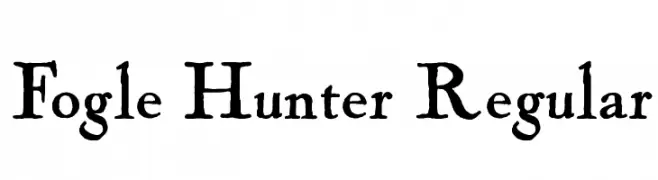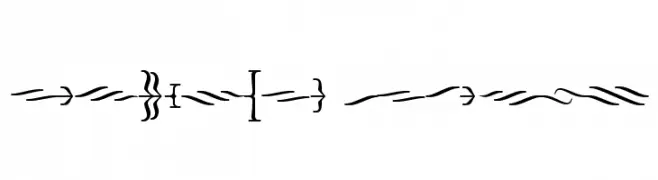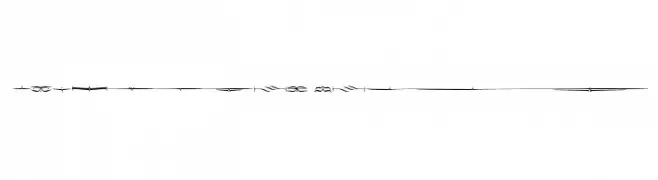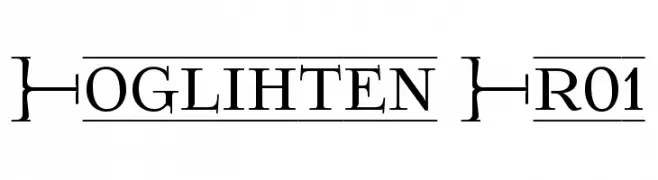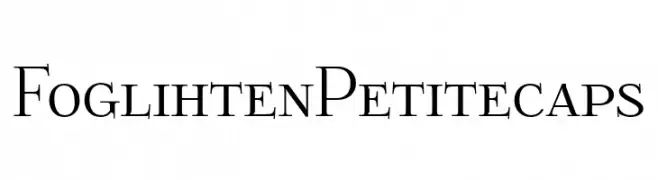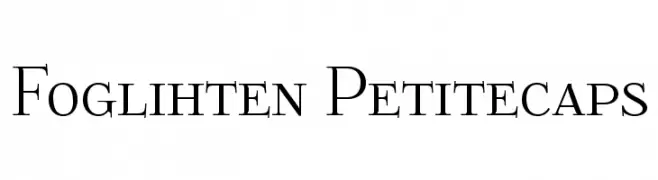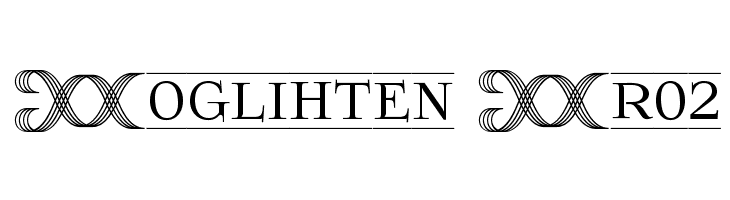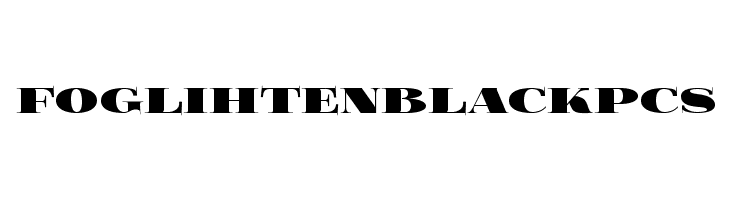
A rustic, hand-drawn font with uneven edges and a natural feel.
A classic serif font with high contrast and elegant curves.
An abstract, decorative design with swirling lines and geometric shapes.
A sophisticated serif font with a blend of classic and modern elements.
A classic serif font with sharp serifs and balanced proportions.
A classic serif font with elegant strokes and refined design.
A bold, high-contrast display font with sharp serifs and a modern style.